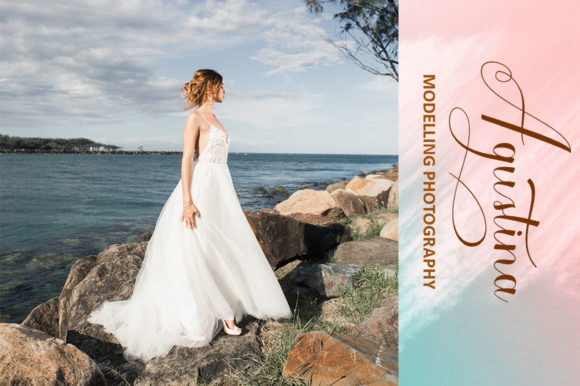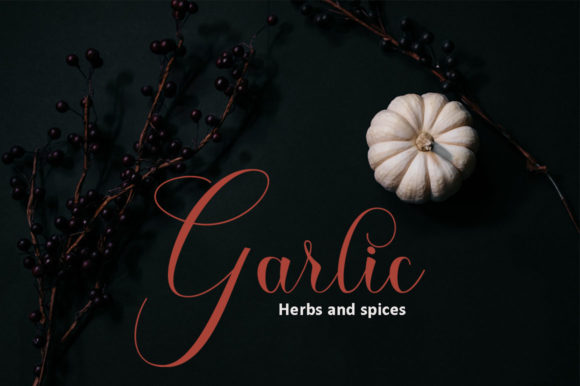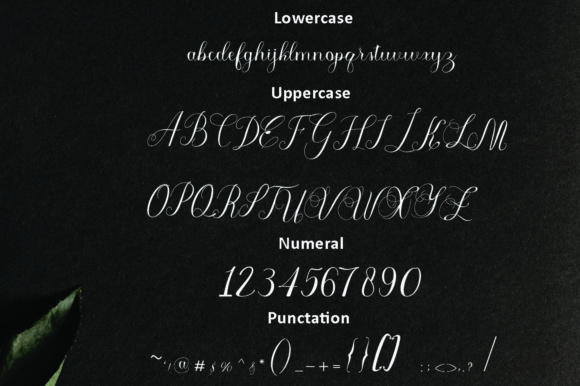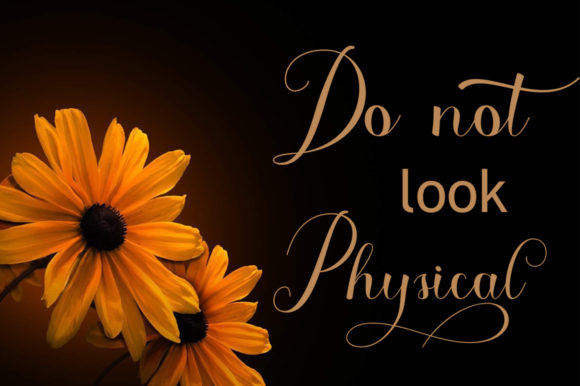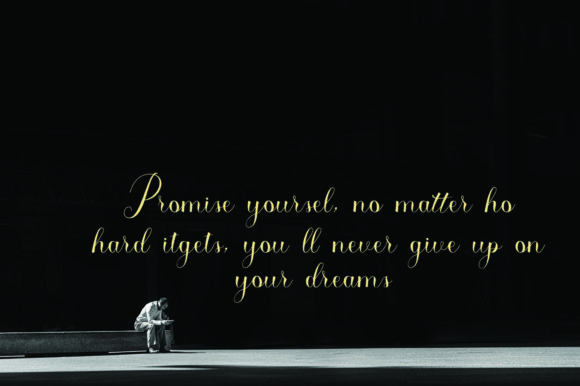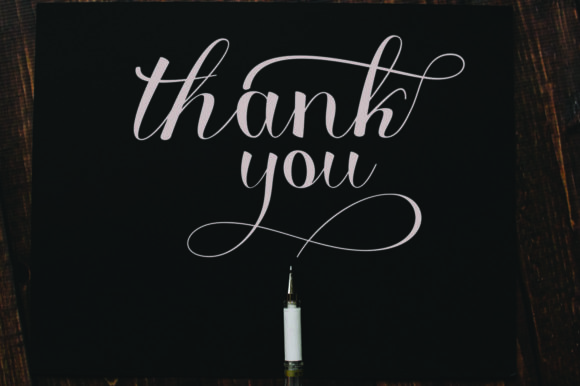
Introduction to Qontagen Font
Have you ever been working on a creative project, pouring your heart and soul into it, and then suddenly, you hit a design roadblock? The words and ideas are there, but the font just doesn’t seem to match the vision you have in your mind. This is where the Qontagen Font comes in – a stunning script font that can elevate any DIY project to new heights.
As a designer, you know the importance of having the right tools and resources at your disposal. The Qontagen Font is a valuable addition to any design arsenal, offering a unique and stylish touch that can set your projects apart from the crowd. With its classic typography roots, this font brings a sense of sophistication and elegance to any design, making it a must-have for any creative project.
Key Features of Qontagen Font
- High-quality, unique design ideal for creative projects and design resources, available for free download.
- Includes a large character set with multiple languages, making it suitable for global design projects.
- Designed with a modern and sleek aesthetic, perfect for creative projects requiring a contemporary look.
Honest Review: Qontagen Font
I recently stumbled upon the Qontagen Font while searching for a design resource to enhance my creative project. I must say, I was impressed with its clean and modern aesthetic.
- ✨ High quality: The font is crisp and clear, making it perfect for digital design.
- ⚠️ Limited font weights: The font only comes in a few weights, which may limit its versatility in certain design projects.
- ⚠️ No italics: Unfortunately, the font does not have an italic version, which may be a drawback for designers who prefer to use italics in their work.
Overall, I think the Qontagen Font is a solid addition to any designer’s toolkit. While it may not be perfect, its high quality and free download make it a great resource for designers on a budget. I would definitely recommend it to anyone looking for a clean and modern font for their creative project.
Common Use Cases for Qontagen Font
The Qontagen Font is ideal for a variety of design projects, including:
- Graphic design and visual branding
Is the Qontagen Font high quality and suitable for professional use?
Yes, the Qontagen Font is a high-quality design resource that’s suitable for professional use. It’s carefully crafted to ensure that it’s clear, legible, and visually appealing, making it an excellent choice for any creative project, from branding to typography.